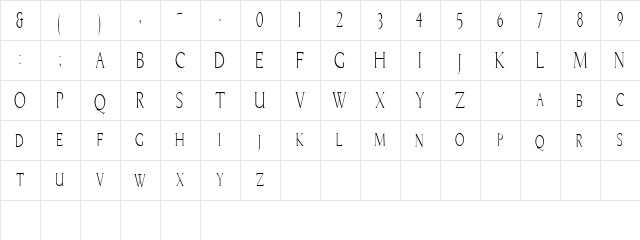
BriceCondensed Regular
Design Context for BriceCondensed Typeface
BriceCondensed is a composed and adaptable typeface that performs quietly and consistently across a wide range of design contexts. The condensed width makes it efficient for tight spaces without sacrificing legibility.